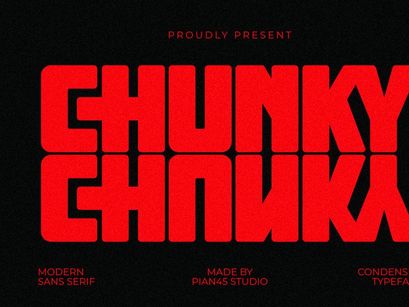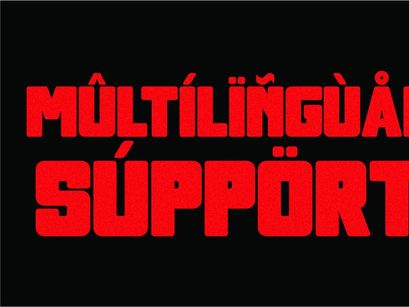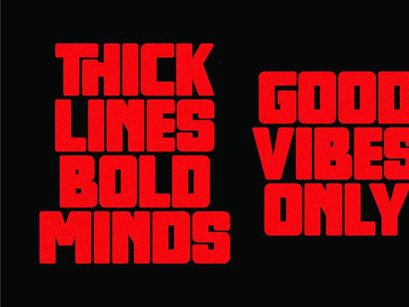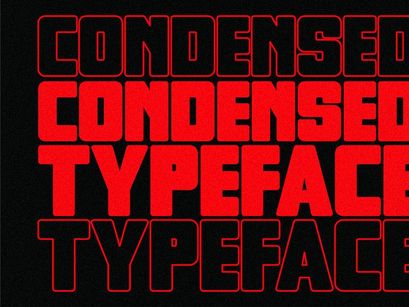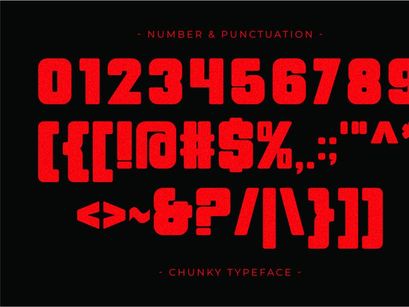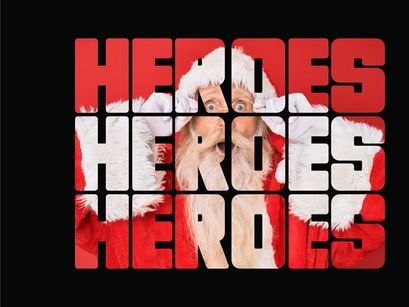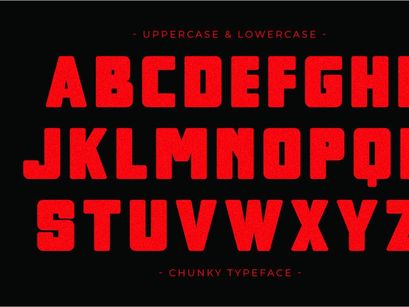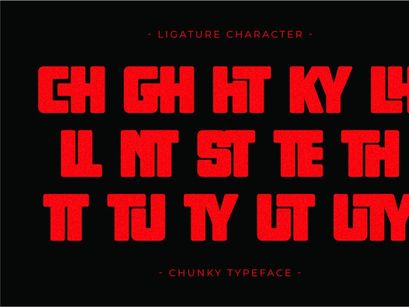
Chunky - Condensed Sans Serif FontPremium
Chunky - Condensed Sans Serif Font
Chunky
Chunky is a powerful and impactful Modern Condensed Sans Serif font designed to dominate any design layout. Featuring an ultra-thick, blocky structure with smoothly rounded corners, this typeface perfectly balances aggressive weight with a clean, contemporary aesthetic. It is the ultimate choice for sports branding, high-energy gym graphics, streetwear apparel, and colossal headlines that require maximum visibility. This all-caps font ensures a strong, recognizable visual identity for logos, posters, and digital media projects demanding a bold and modern presence.